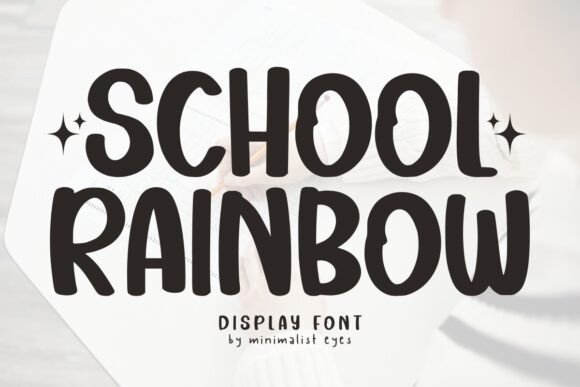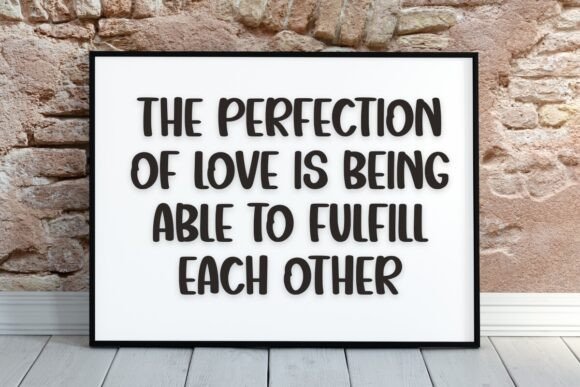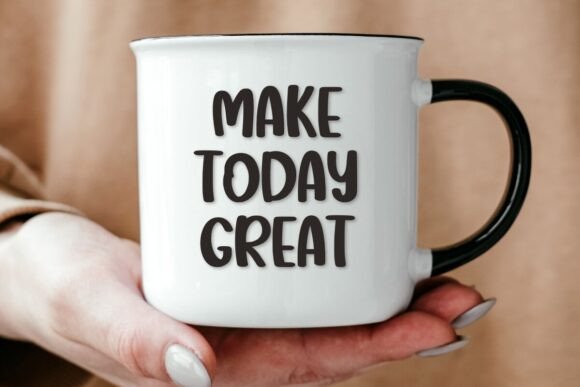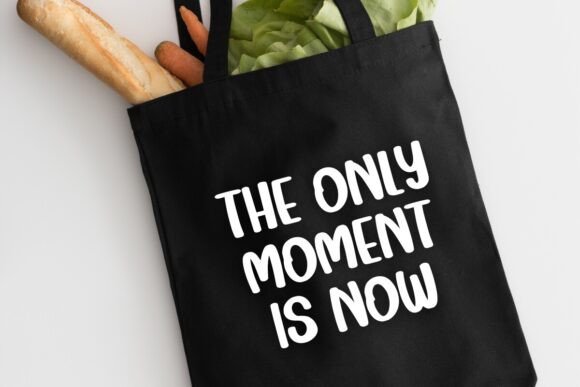
School Rainbow Font: A Cute Display Font for Playful Designs
About the School Rainbow Font
Let us introduce you to School Rainbow Font, where timeless design meets modern craftsmanship. School Rainbow a modern and friendly display font, is a delightful blend of whimsy and clarity. Its playful curves and rounded edges bring a sense of warmth to any design. Perfect for children’s books, invitations, and branding, School Rainbow radiates a sweet charm that captures attention with its inviting personality.
School Rainbow Font Usage Examples
School Rainbow Font Example